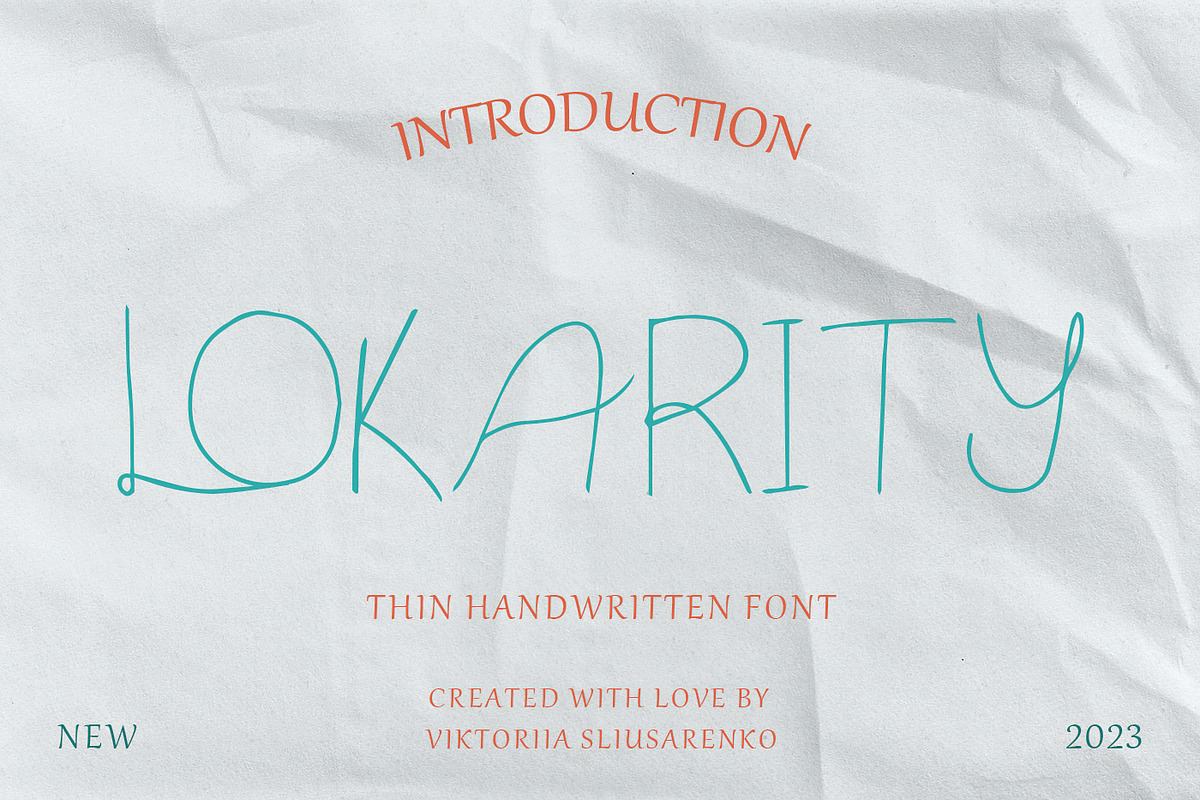
LOKARITY - thin handwritten font Free Download
LOKARITY - Thin Handwritten Font Free Download
LOKARITY - Thin Handwritten Font Free Download is an elegant, delicate handwritten typeface with thin, graceful strokes. Its minimalistic yet stylish design makes it perfect for invitations, social media graphics, logos, branding, and any project that requires a personal, sophisticated touch.
The thin letterforms and fluid strokes give LOKARITY a refined and artistic look, making it ideal for both modern and vintage-style designs. Whether you're designing a chic brand identity or creating heartfelt messages, this font adds a unique, handwritten charm to your work.